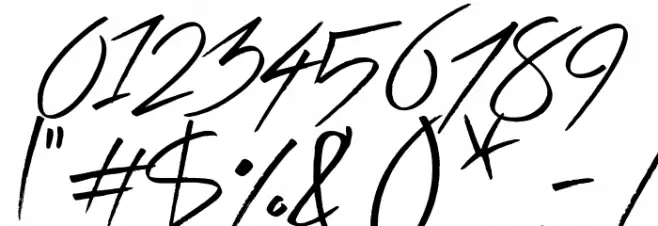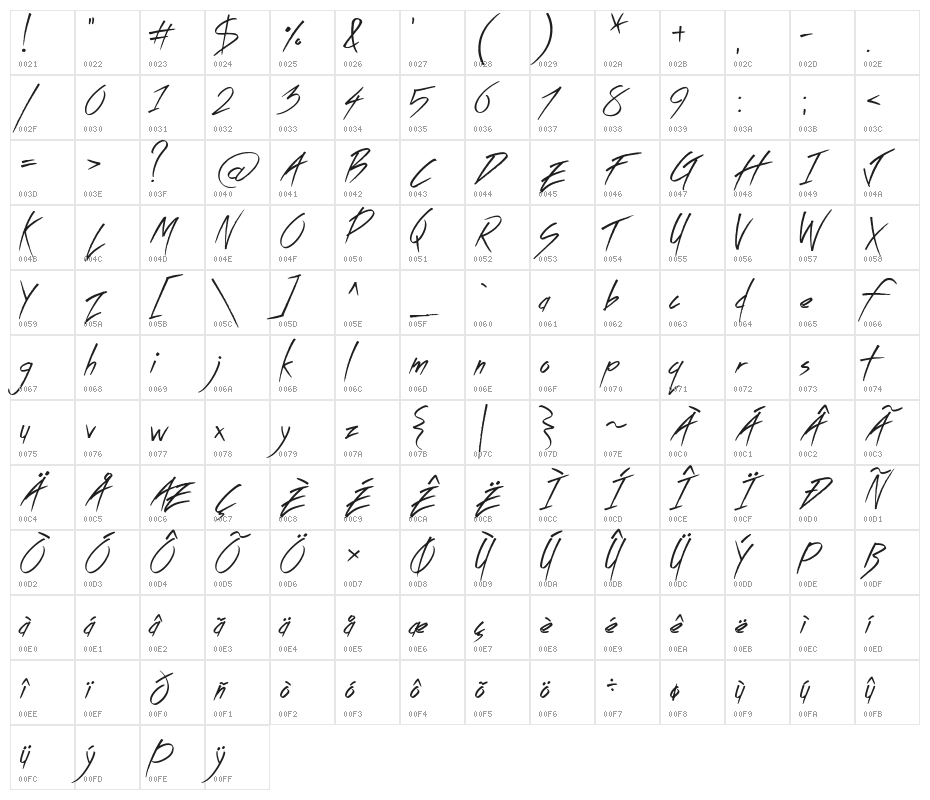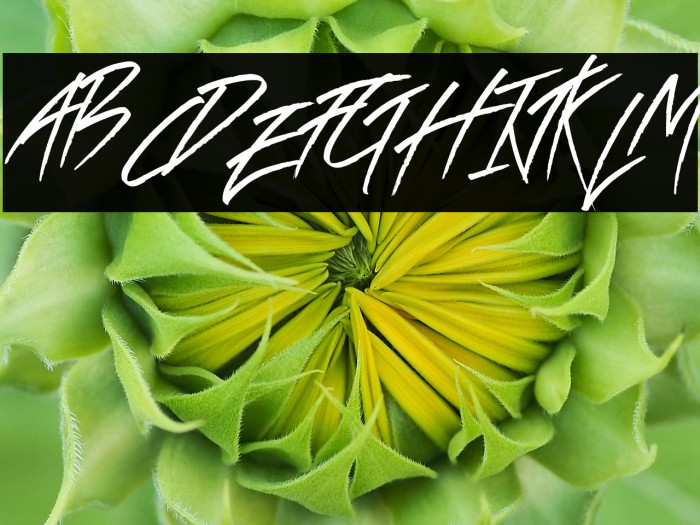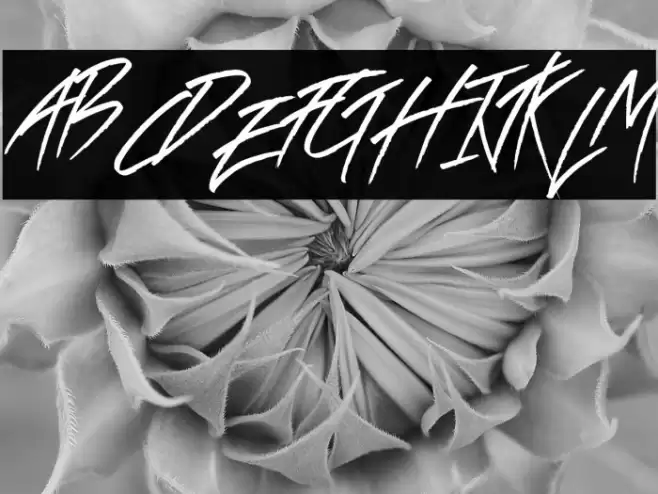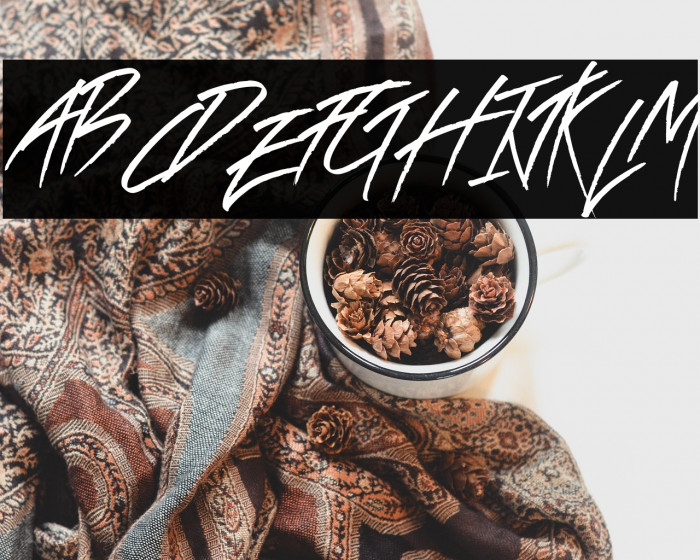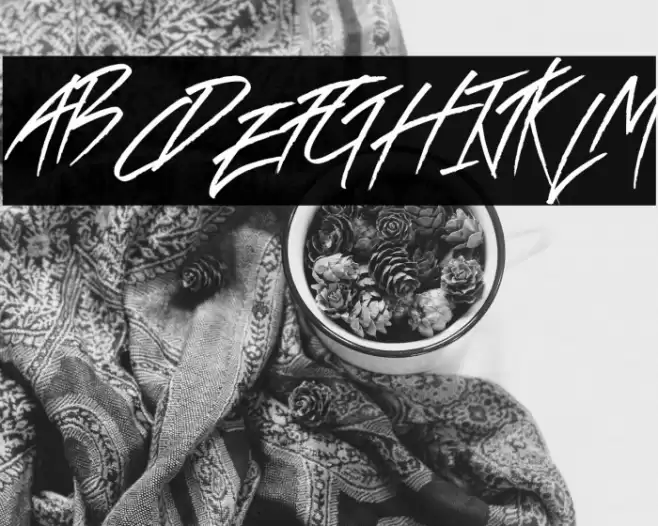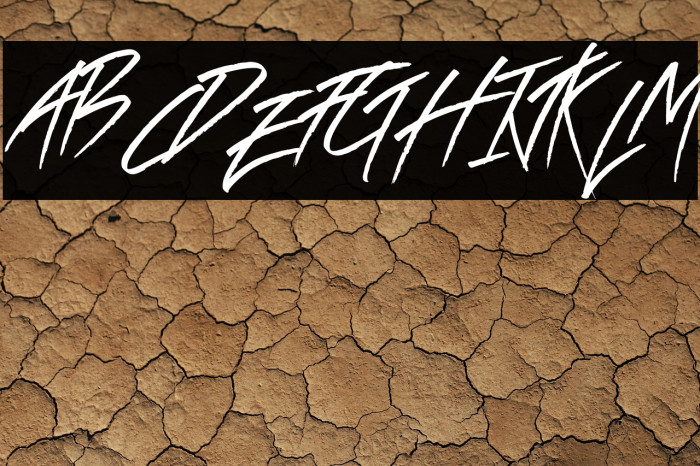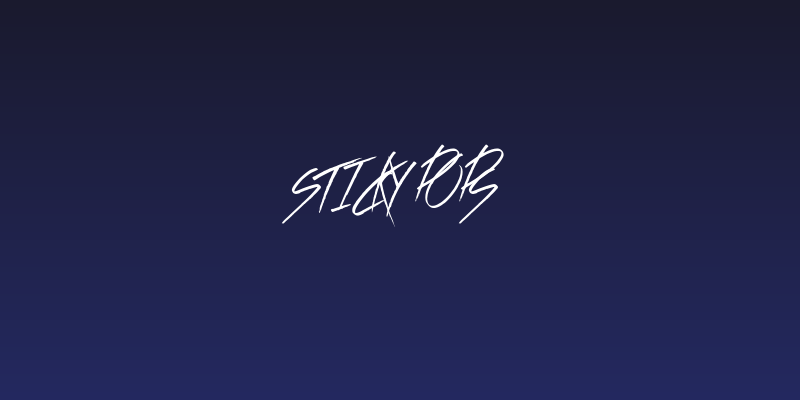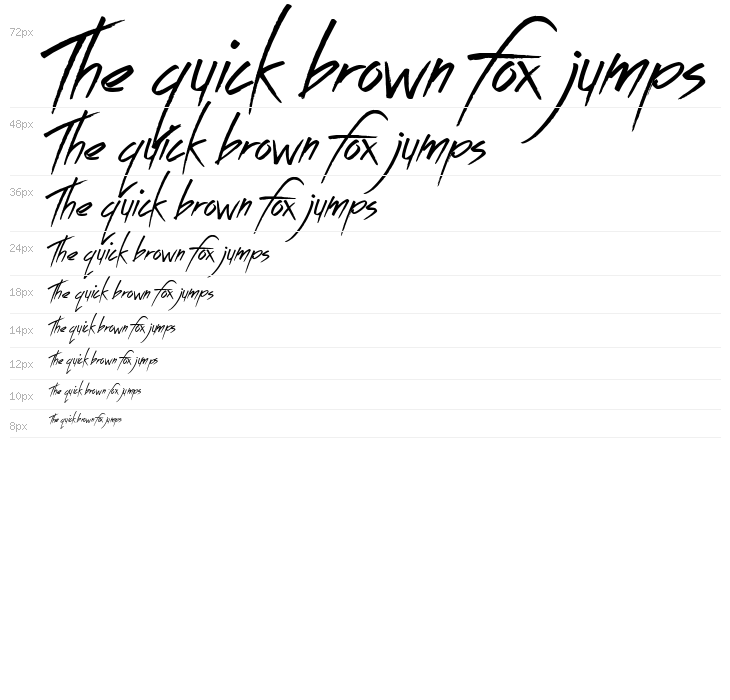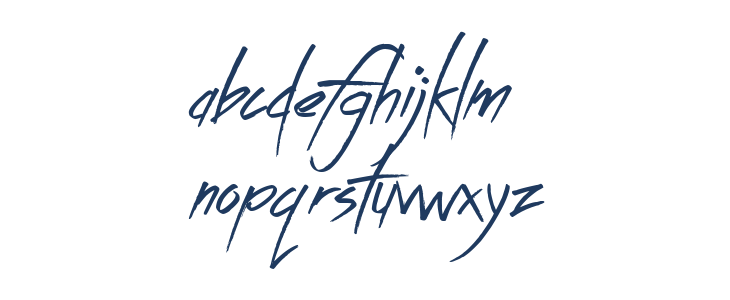
Sticky Pops Font
Sticky Pops Description
This font features a dynamic and energetic handwritten style, characterized by sharp, angular strokes and a slightly chaotic appearance. The letters are slanted, giving a sense of motion and urgency. The uppercase and lowercase letters maintain a consistent style, with elongated lines and pointed edges. Numbers and special characters follow the same aesthetic, adding to the cohesive look. The overall impression is one of spontaneity and expressiveness, making it suitable for projects that require a personal or artistic touch.
| Overall Style | Expressive, Artistic |
| Use Case | Logos, Posters, Creative Designs |
| Proposed Projects | Ideal for artistic projects, personal branding, creative posters, and expressive designs. |